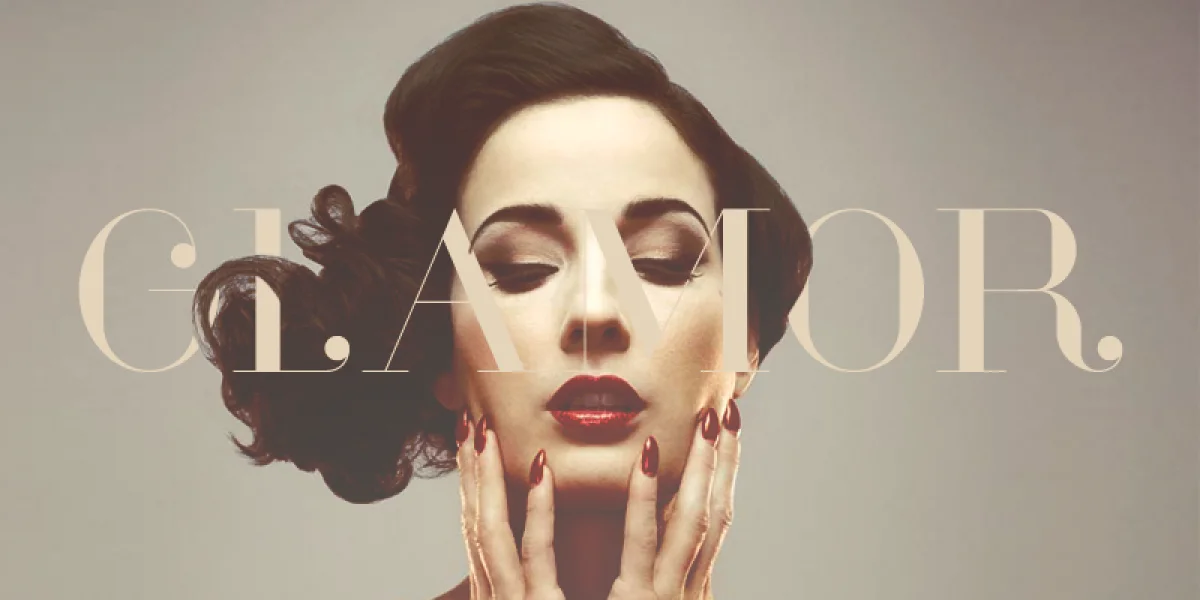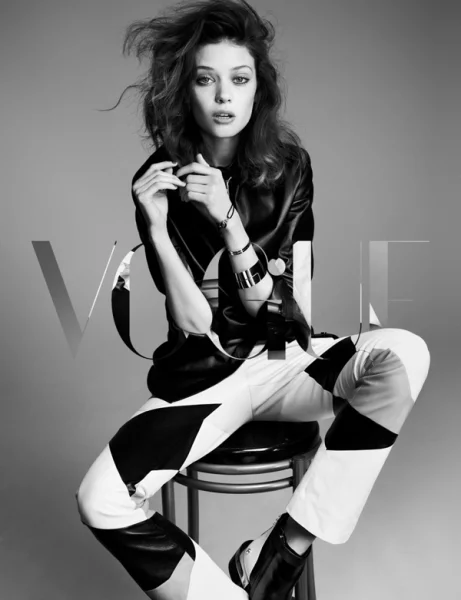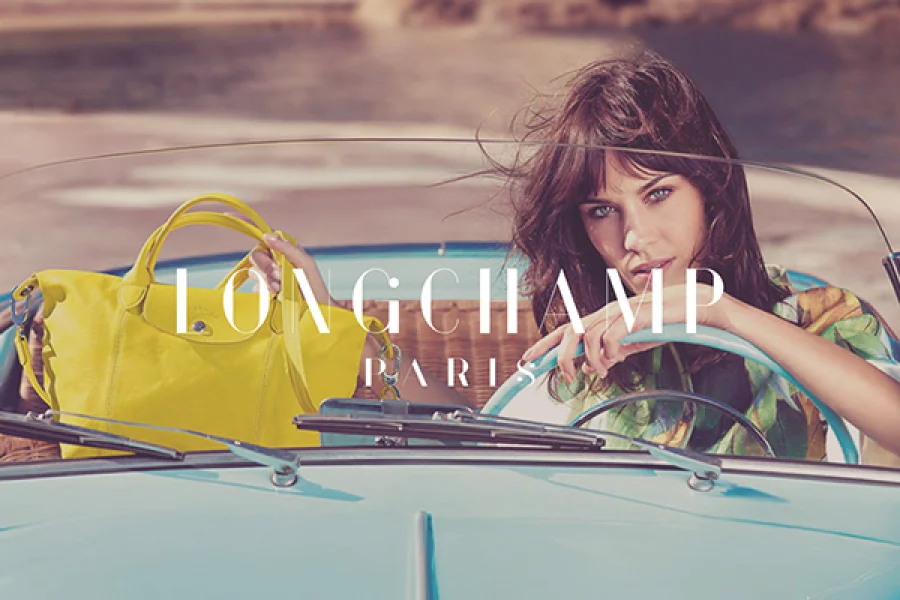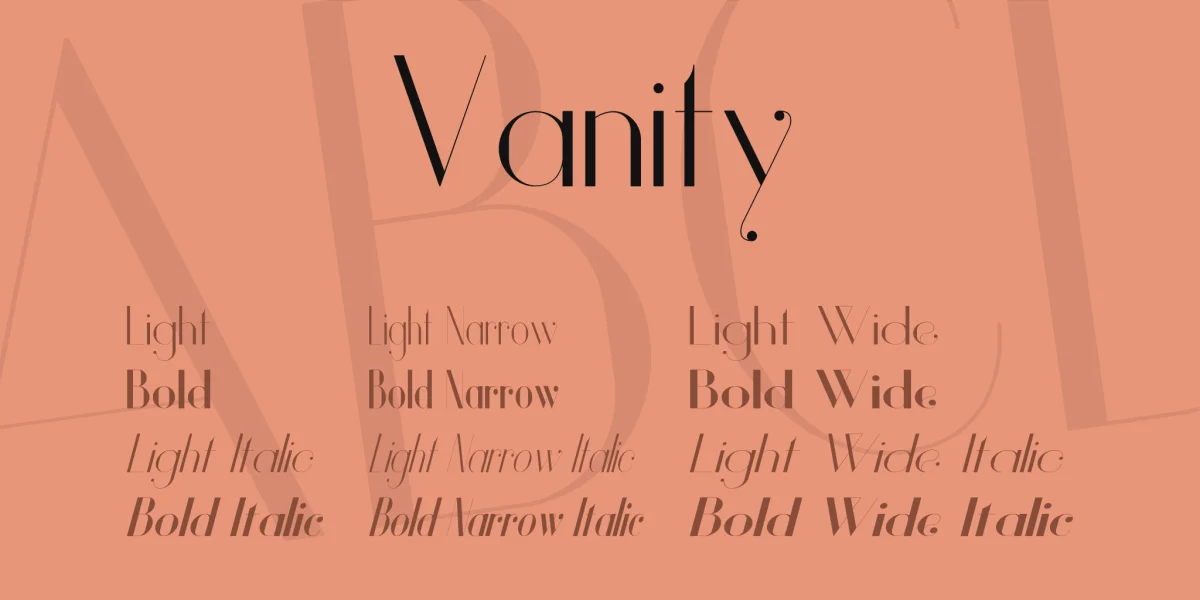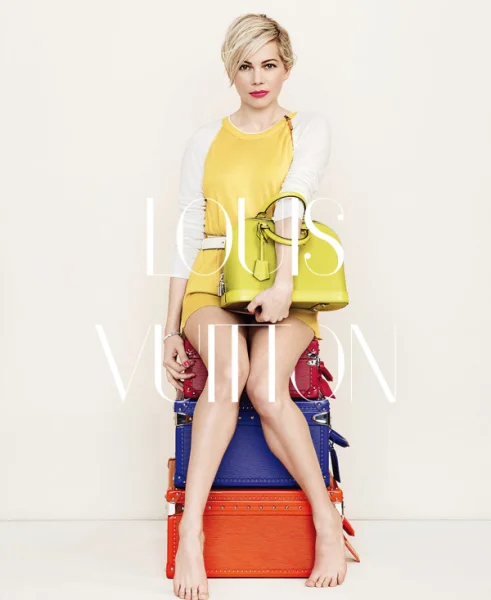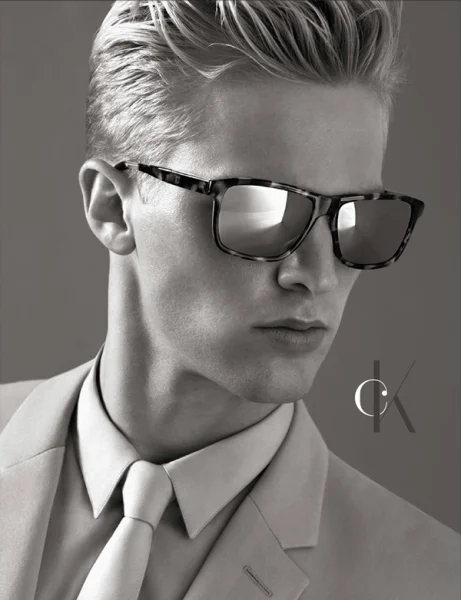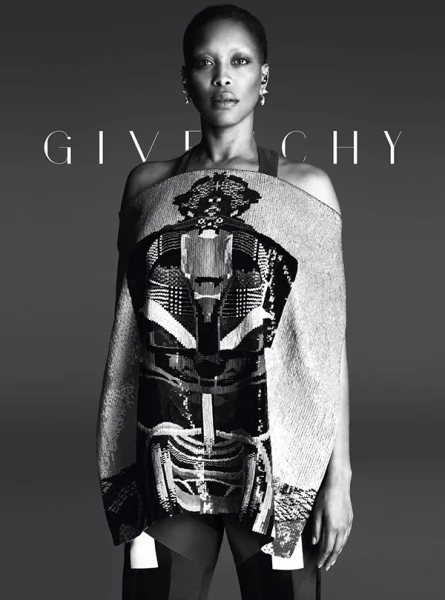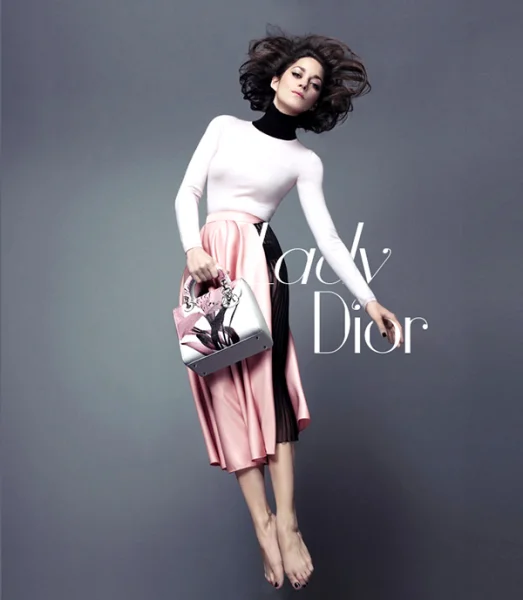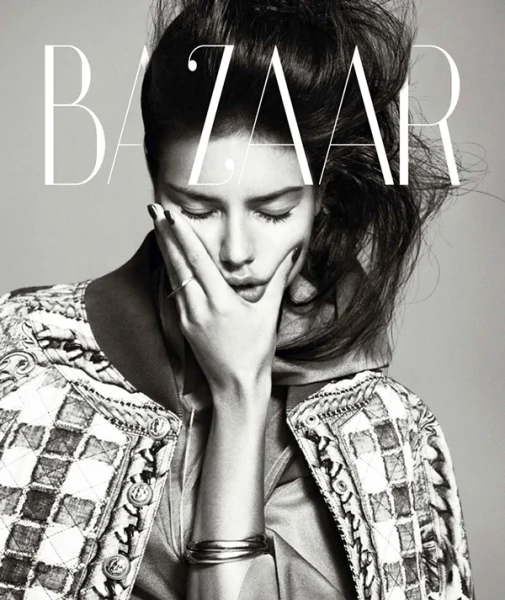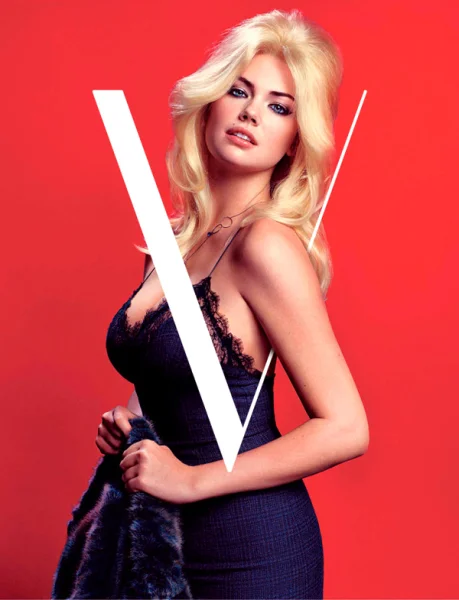
Vanity Font Family
Designed by Hendrick Rolandez
VANITY is new free modern & sans-serif type family designed in 2014 including a set of 12 fonts, from light to bold, plain to italic, narrow to wide, now available in OTF and TTF formats to anyone.
This type family can be used both for personal and commercial works such as online/offline magazines and/or books, posters, photography, websites, branding & identity, or TV spots.